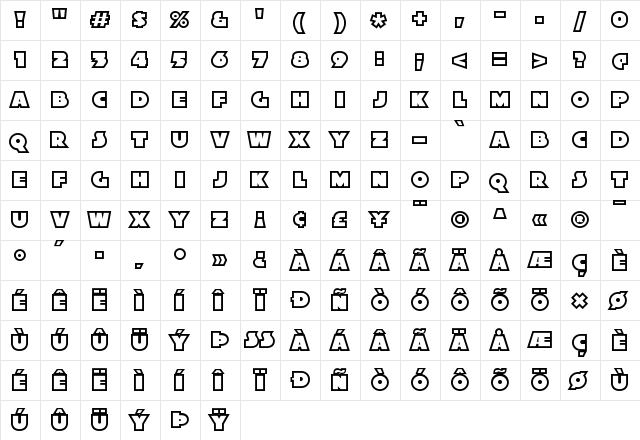
Xylitol Outline
Design Context for Xylitol Typeface
Xylitol is built around its visual character rather than neutral utility — its distinctive forms are designed to make an impression at display sizes.
Font Pairing: Pair with a clean neutral sans-serif for body copy to let Xylitol's character lead without overwhelming the composition.
Pro Tip: Treat Xylitol as the centrepiece of your typographic hierarchy. One strong heading set in a decorative face can carry an entire layout.